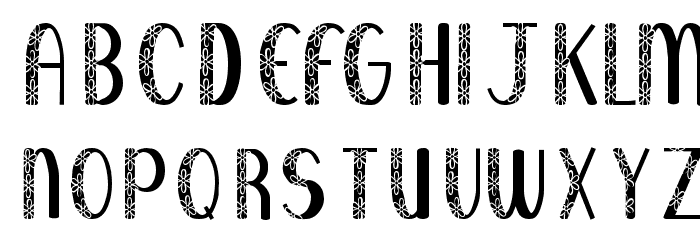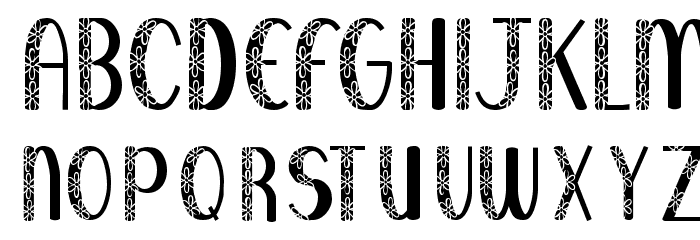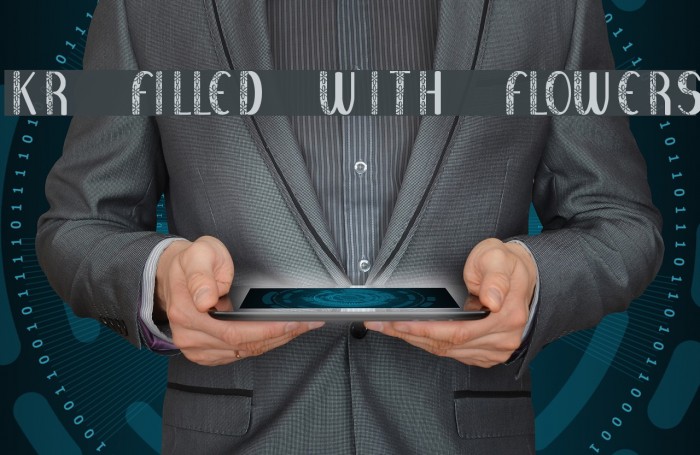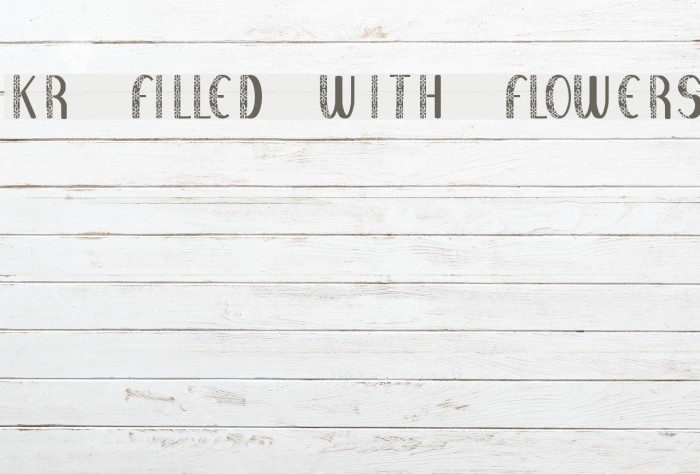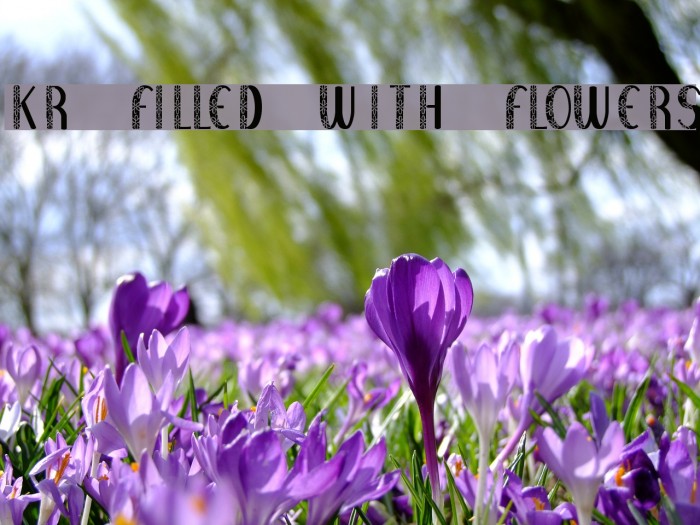
KR Filled With Flowers Font
This decorative font features an intricate floral pattern within each character, creating a unique and artistic appearance. The uppercase letters are bold and striking, with the floral design adding a touch of elegance and whimsy. The lowercase letters maintain the same floral motif, ensuring consistency throughout the typeface. The numbers and special characters are also adorned with the floral pattern, making this font ideal for creative and decorative projects. The overall style is playful yet sophisticated, perfect for adding a distinctive flair to any design.
A decorative font with intricate floral patterns inside each character.
- Font: KR Filled With Flowers
- Proposed Projects: Ideal for wedding invitations, greeting cards, branding for floral shops, and decorative posters.
- Use Case: Headlines, Logos, Decorative text